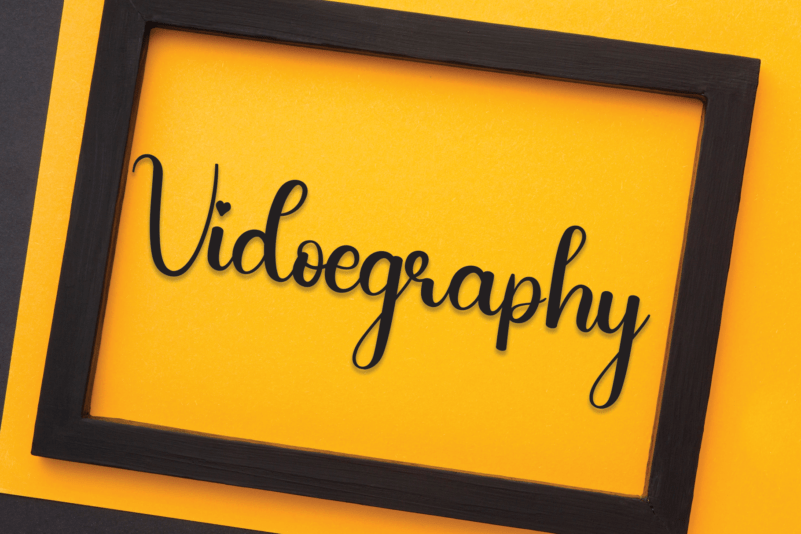
Signature December Font is a sweet and friendly handwritten display font. Cute and fun, this font is ideal for writing wedding invitations, cards, or any other design that might need a playful touch!